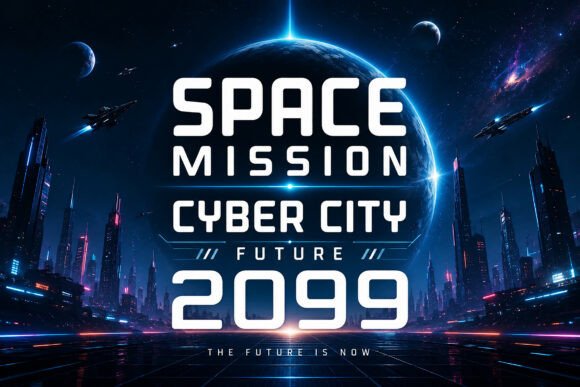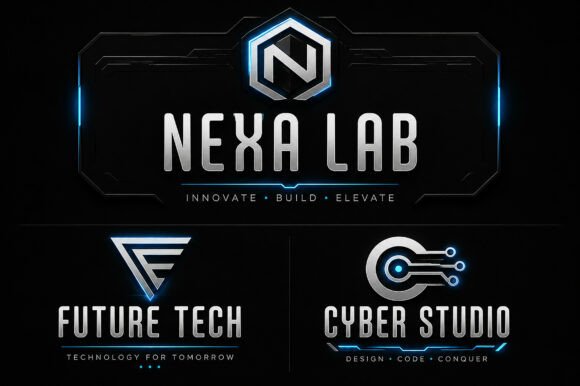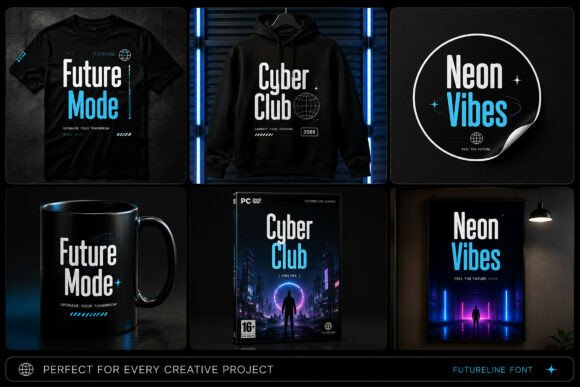
Unlock the Power of Futuristic Design
Imagine you’re brainstorming ideas for a new tech startup, and you need a font that screams innovation and cutting-edge technology. You scroll through your design assets, and suddenly, a sleek, modern font catches your eye. Its clean lines, geometric structure, and bold aesthetic transport you to a world of limitless possibilities. This is the moment when the Futureline Font steps in, elevating your design to new heights.
Futureline Font is a modern futuristic display font designed to bring a high-tech feel to your creative projects. With its tall proportions, rounded corners, and clean geometric structure, it delivers a bold sci-fi aesthetic while maintaining excellent readability. Whether you’re designing for a tech brand, gaming title, or futuristic logo, the Futureline Font adds a professional and futuristic touch that instantly stands out.
Key Features of Futureline Font
- Font Family: Futureline Font is available in 8 different font families, including Regular, Bold, Italic, and Bold Italic.
- Character Count: The font includes a vast character set, covering over 1000 glyphs, including Latin, Cyrillic, and Greek alphabets.
- Unique Characteristics: Futureline Font features a futuristic, high-tech design with clean lines, geometric shapes, and a sleek aesthetic, making it perfect for sci-fi, tech, and futuristic-themed projects.
Futureline Font Review
Overall, I was impressed with the modern and futuristic vibe that the Futureline Font brings to the table. It’s a bold and eye-catching font that can elevate any design project. ✨ I particularly like the font’s ability to create a sense of movement and energy, perfect for tech-related or futuristic concepts.
Some of the features that stand out to me include:
- Wide range of font weights and styles
- Excellent legibility, even at small font sizes
- Support for various languages
- May not be suitable for projects that require a more classic or traditional look
- Some users may find the font too bold or overwhelming
- May not be as versatile as other fonts in terms of pairing with different colors and backgrounds
⚠️ While these limitations are worth noting, I believe the Futureline Font is a great addition to any designer’s toolkit. Its unique style and features make it a great choice for projects that require a modern and futuristic look.
Tips for Getting the Most Out of the Futureline Font
1. Use the Futureline Font to create a futuristic or sci-fi themed design.
2. Experiment with different font sizes and colors to add visual interest.
3. Combine the Futureline Font with other fonts to create a unique and modern look.
The Futureline Font is ideal for:
1. Sci-fi and futuristic themed designs.
2. Modern and tech-savvy branding.
3. Creating a sense of urgency or excitement in your design.
Alternative Fonts to Futureline Font
Futureline Font is a popular sans-serif font known for its clean and modern design. However, it may not be suitable for every project. Here are 3-4 alternatives that designers can consider:
1. Arial
Arial is a classic sans-serif font that is widely used in digital design. It is simple, easy to read, and suitable for body text, headings, and titles. When to use: body text, headings, and titles where a clean and simple design is required. Comparison to Futureline Font: Arial is more traditional and less modern than Futureline Font.
Open Sans is a modern sans-serif font that is highly legible and versatile. It is designed for digital use and works well for body text, headings, and titles. When to use: body text, headings, and titles where a clean and modern design is required. Comparison to Futureline Font: Open Sans is more modern and has a slightly different feel than Futureline Font.
Q: Does the Futureline Font support ligatures and contextual alternates?